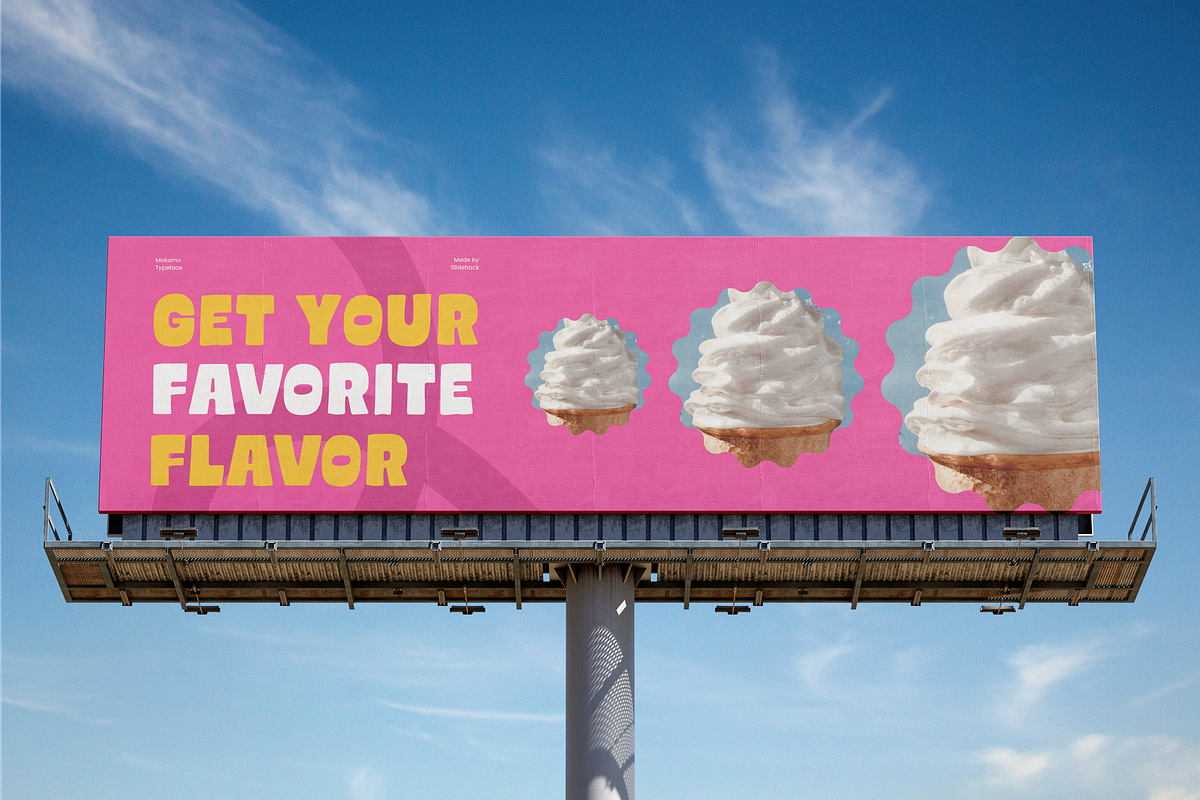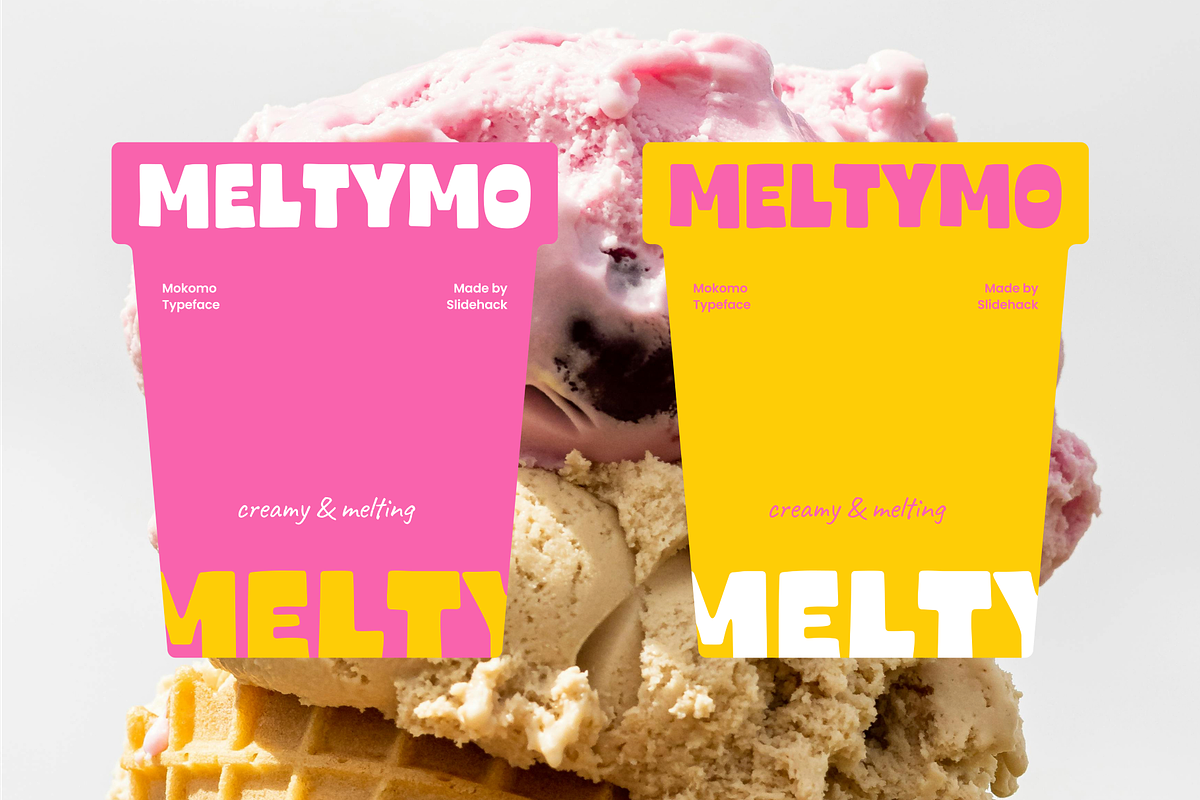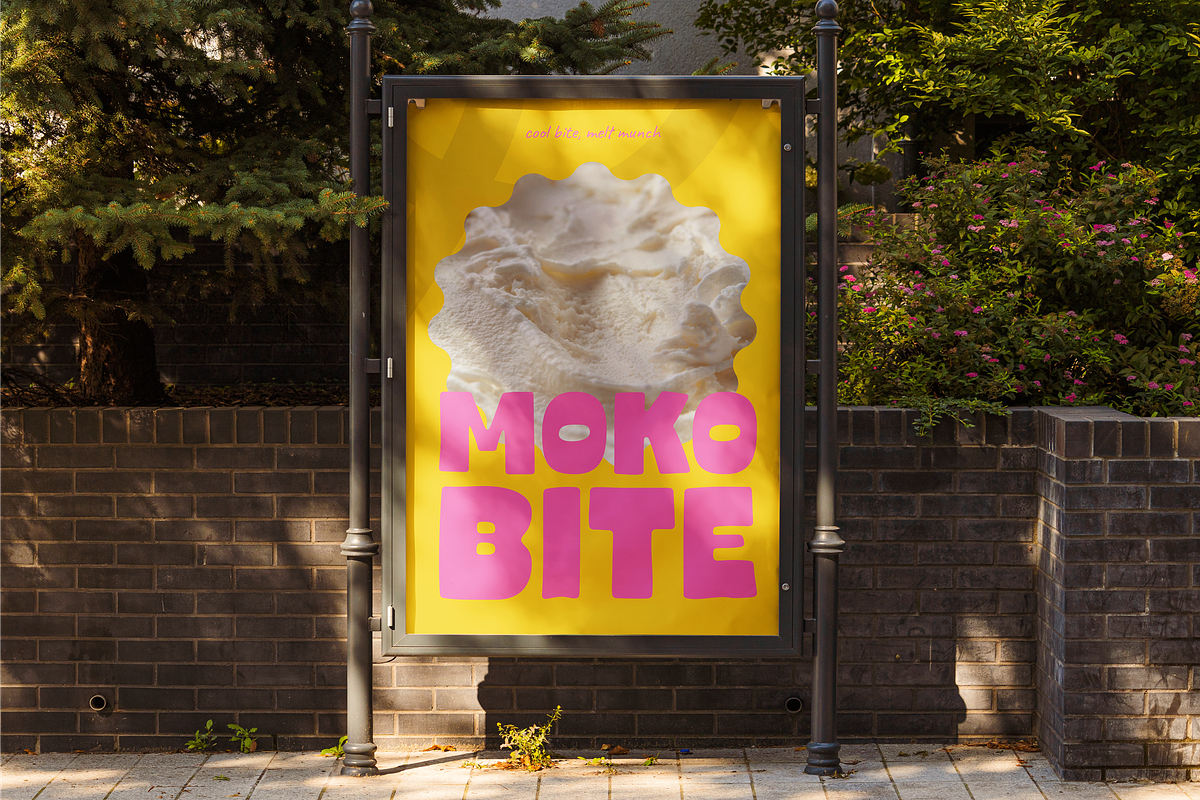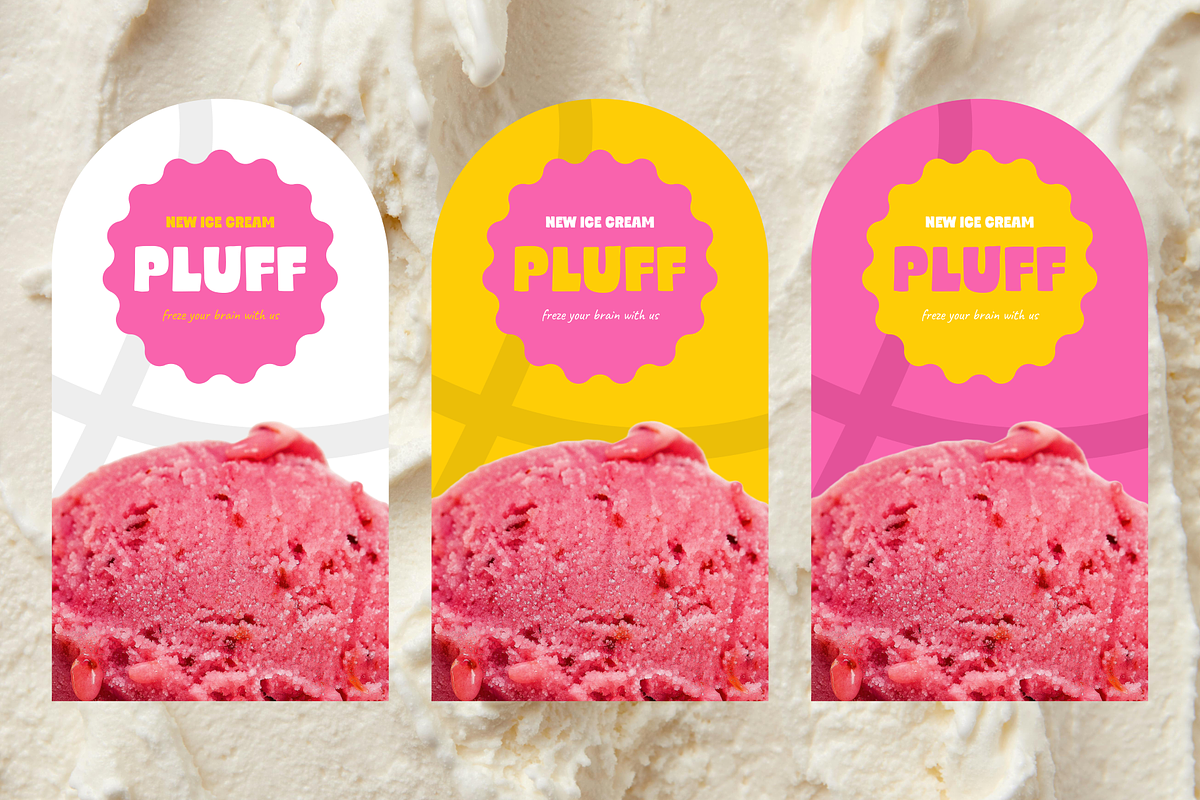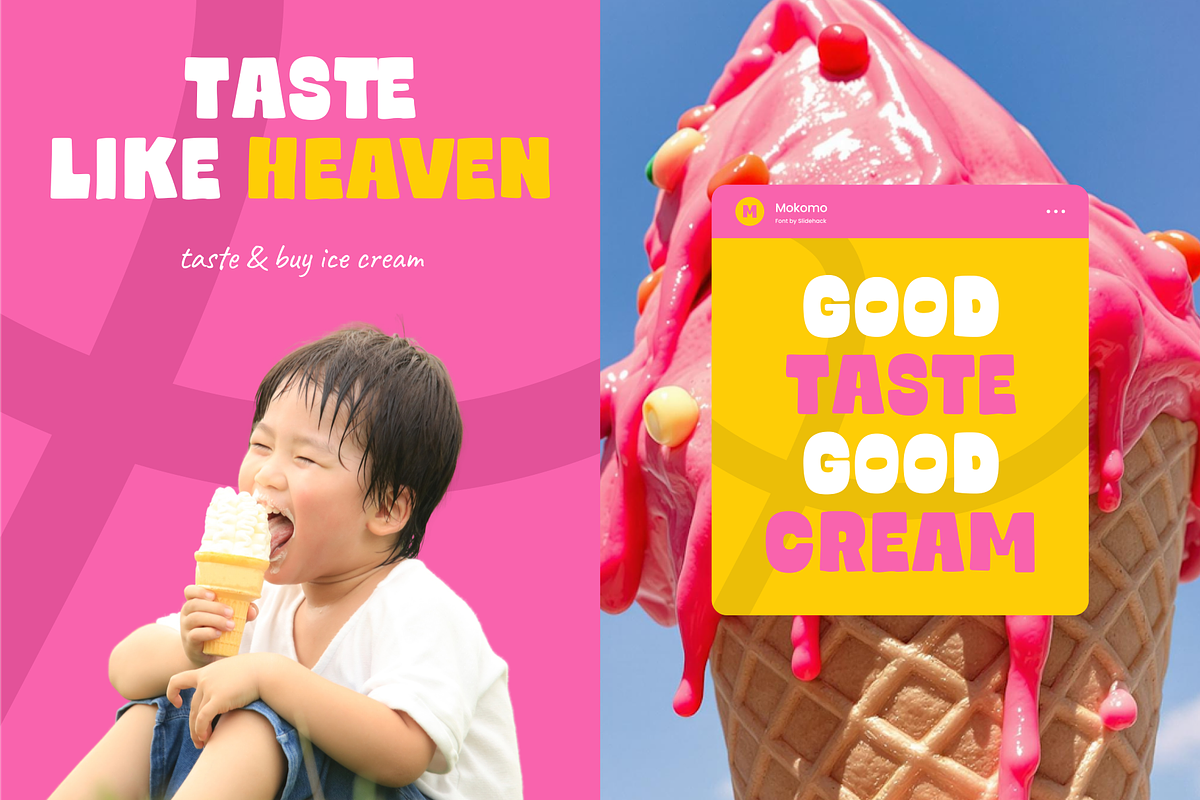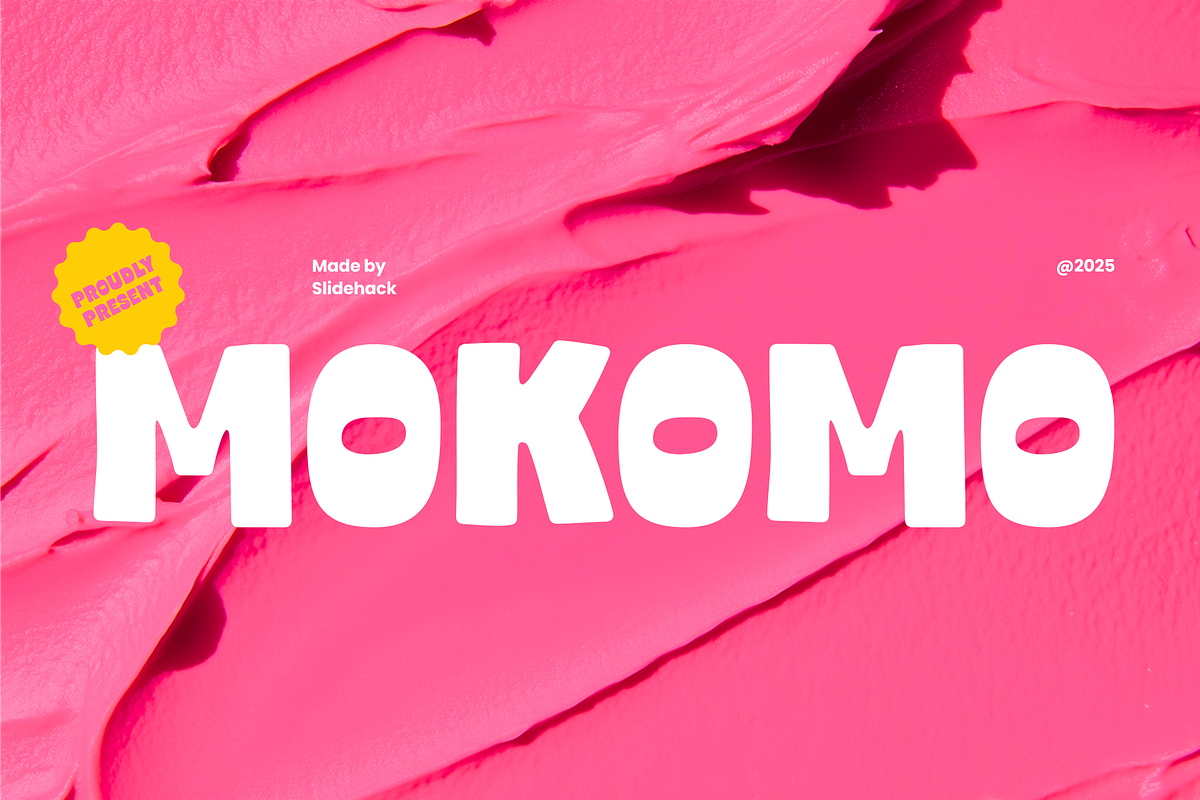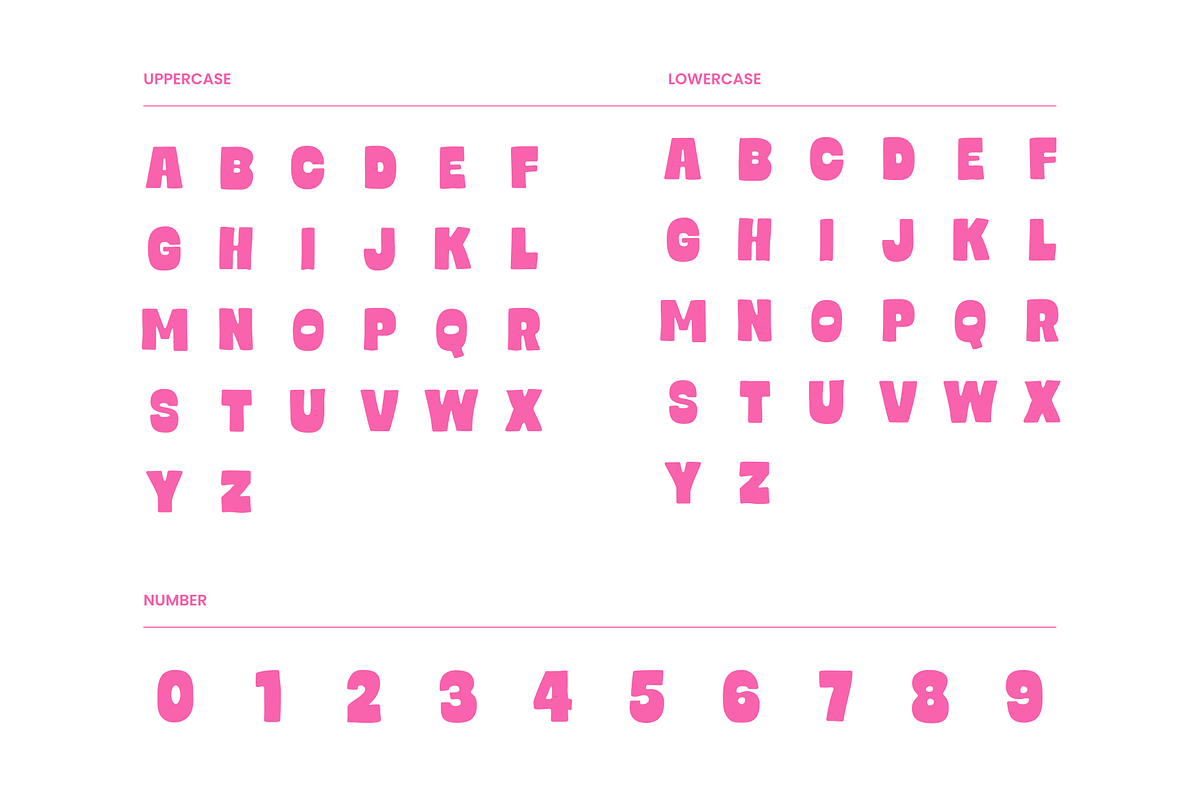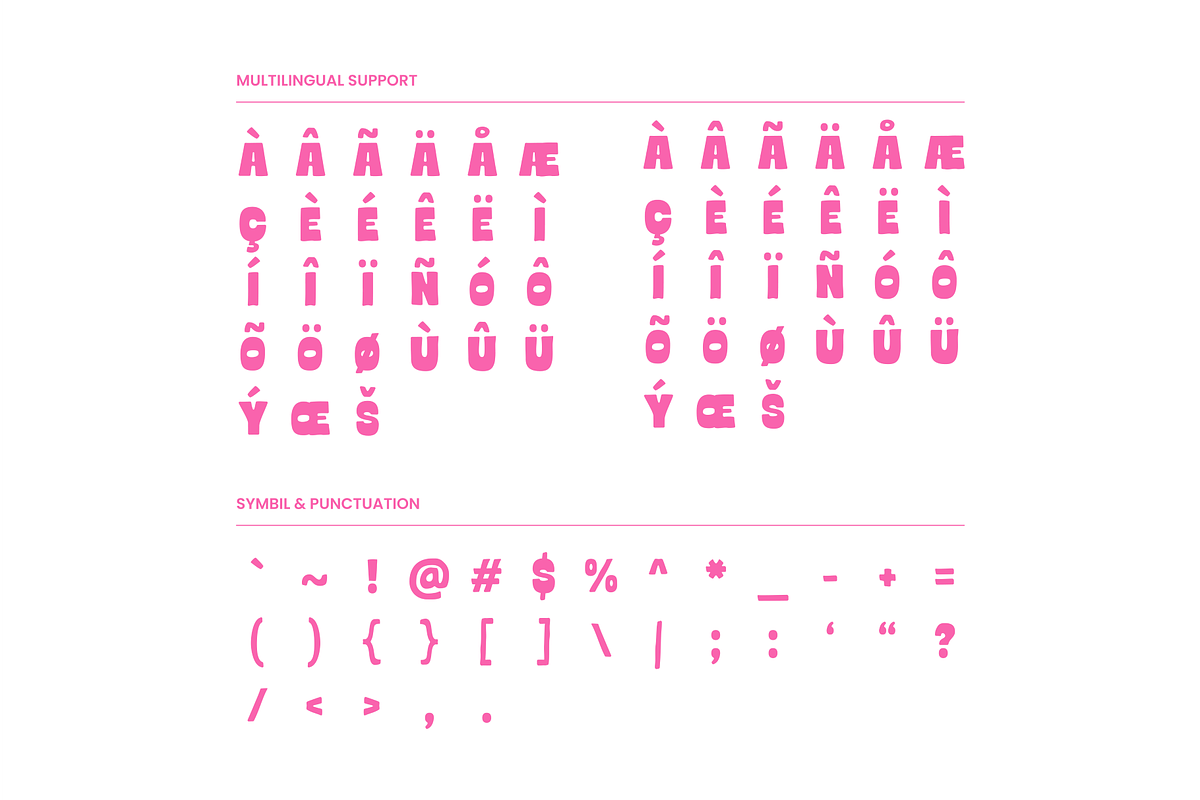
Mokomo - Bold Display Font
Mokomo is a bold and playful display font with a soft, bubbly charm that adds a fun touch to your designs. Perfect for kids’ branding, posters, packaging, and social media visuals, this typeface brings joyful personality and retro energy that makes every project look cheerful and full of character.